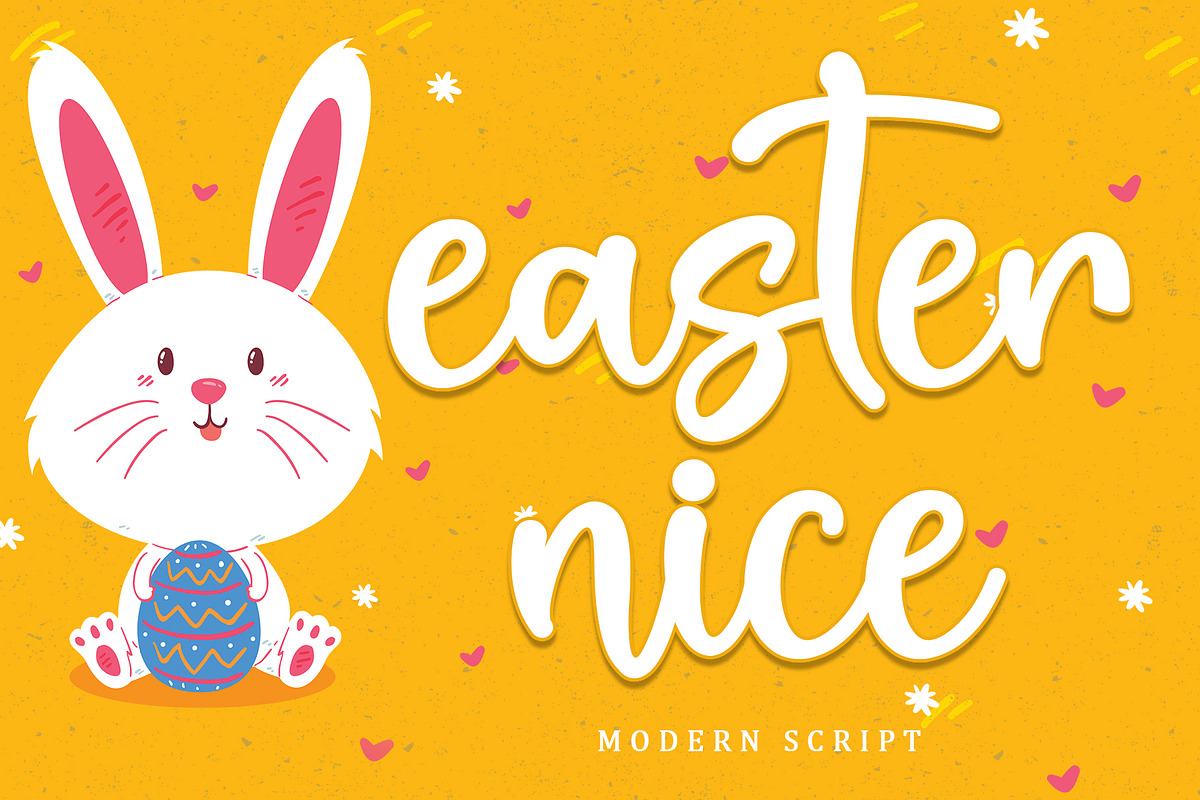
You must purchase this font for commercial use. However, you can download Easter Nice - Handwritten Font Free Download for testing purposes. Easter Nice is a cheerful and playful handwritten font that adds a personal touch to any design. Perfect for Easter-themed invitations, greeting cards, branding, social media posts, and other creative projects, this font captures the spirit of fun and warmth.
The informal and flowing strokes of Easter Nice make it ideal for projects that need a casual yet elegant handwritten feel. Whether you're designing for a holiday event, creating a brand identity, or adding charm to your personal stationery, this font adds personality and heart to your typography.